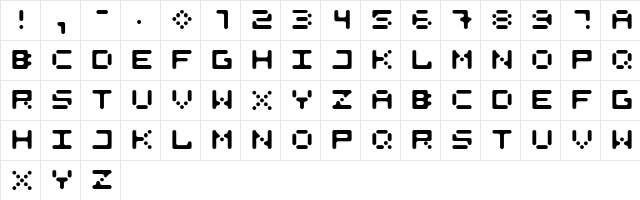
525round Regular
Design Context for 525round Typeface
525round softens its letterforms with rounded terminals, giving it an approachable, friendly quality that works well in consumer-facing and digital contexts.
Well-suited to UI design, mobile interfaces, and any brand that wants approachability without sacrificing clarity.
Font Pairing: Pairs well with a rounded or humanist sans for body copy, maintaining the friendly tone without relying on 525round to carry extended reading.
Pro Tip: Use 525round for UI elements, app interfaces, and anywhere a friendly, approachable tone needs to be maintained without sacrificing clarity.